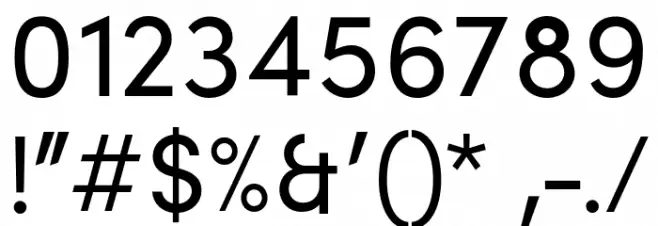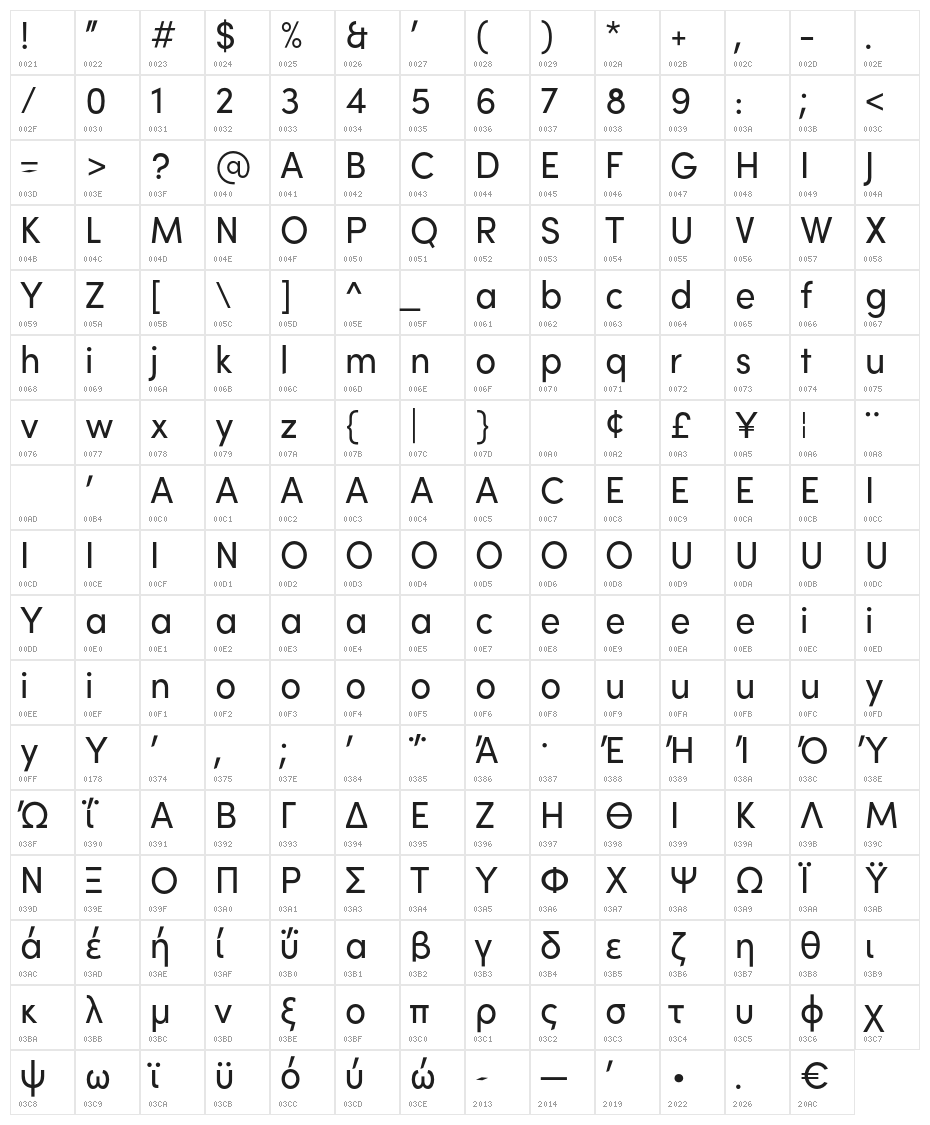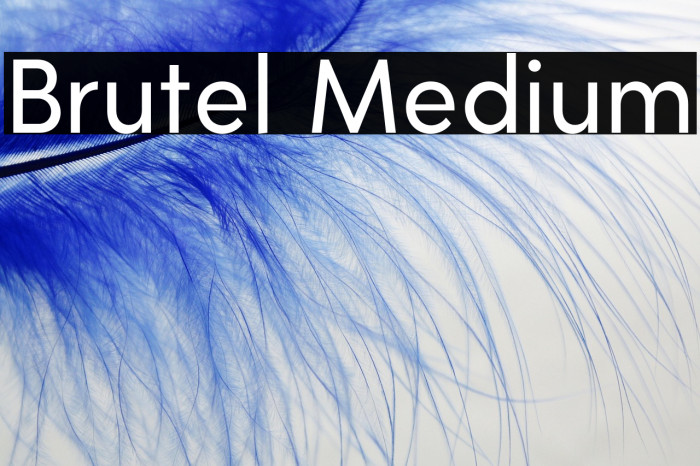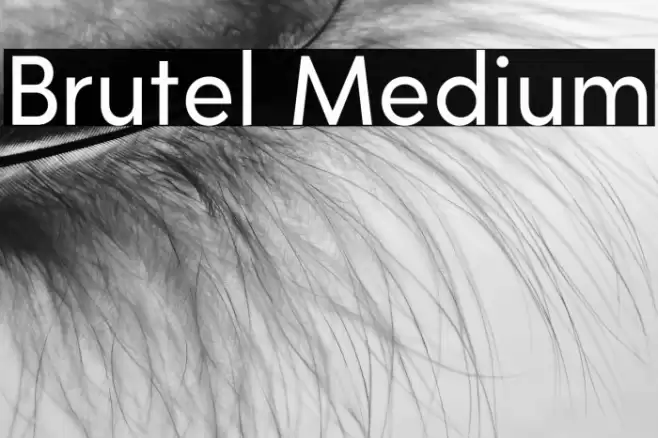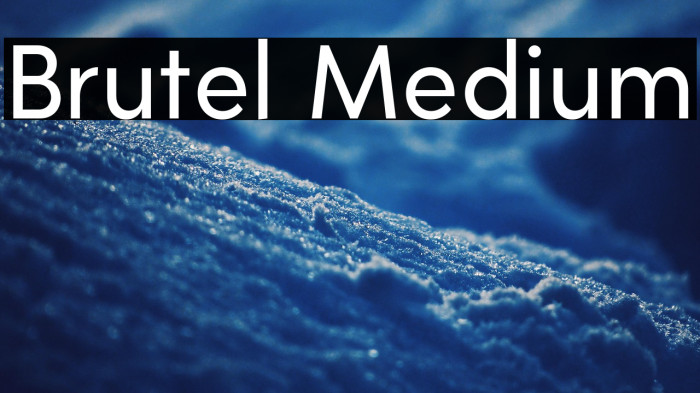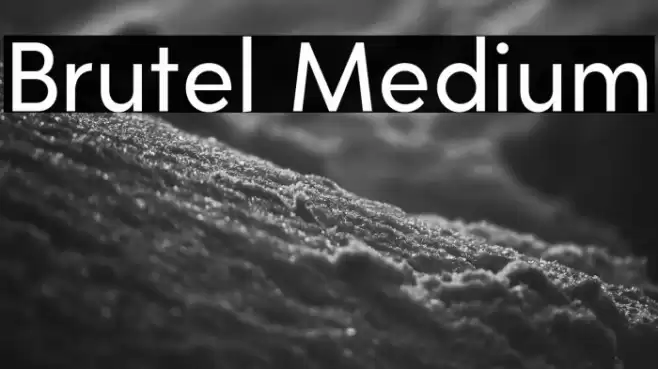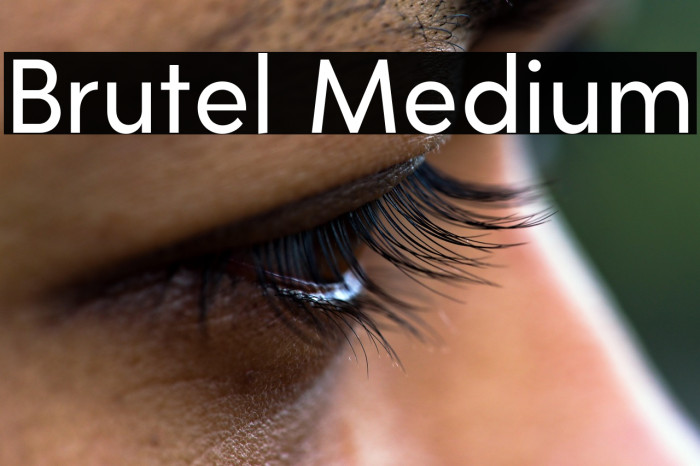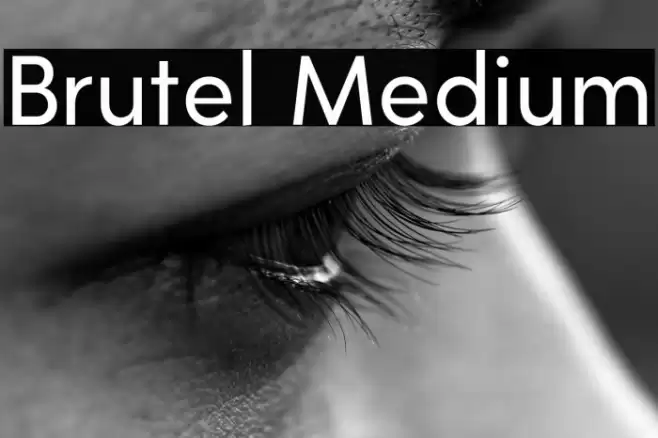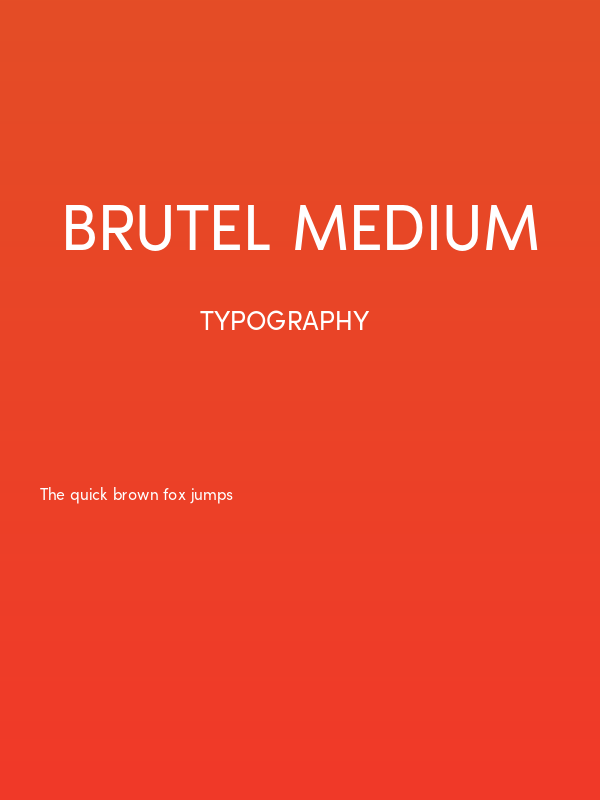
Brutel Medium Font
Brutel Medium Description
This font features a clean and modern sans-serif design, characterized by its geometric shapes and uniform stroke widths. The uppercase letters are bold and assertive, with a slightly condensed appearance that enhances readability. The lowercase letters maintain a consistent style, offering a harmonious blend with the uppercase. The numerals are clear and straightforward, ensuring easy legibility. Special characters are well-defined, adding versatility to the font's application. Overall, this font exudes a contemporary and professional aesthetic, making it suitable for various design needs.